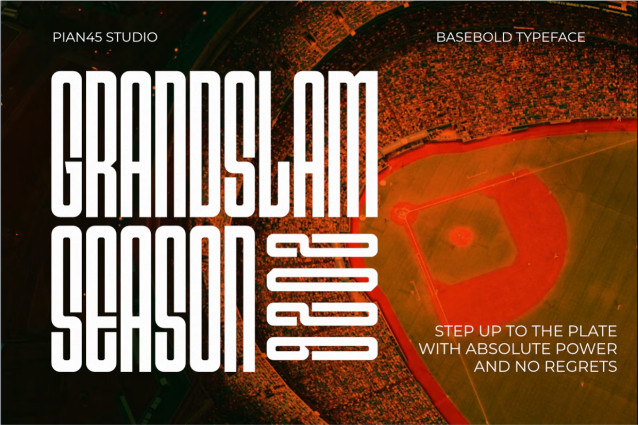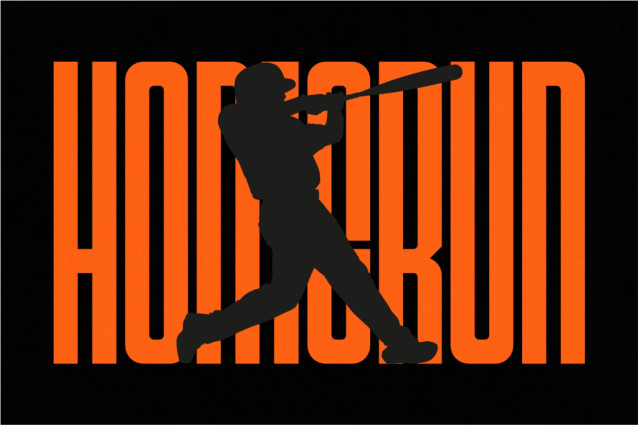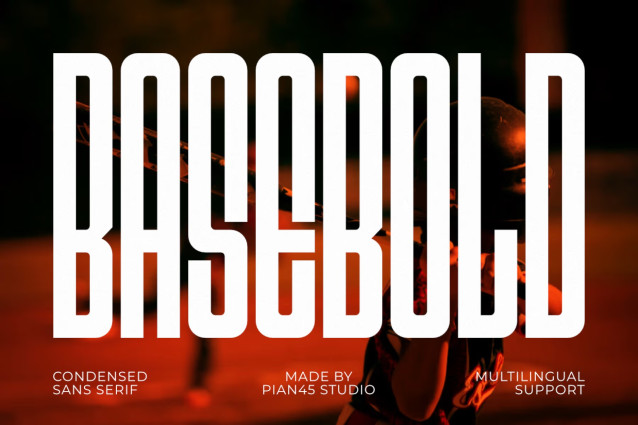
Basebold – Condensed Sans Serif Font
Basebold is a striking and authoritative Modern Condensed Sans Serif font engineered for maximum visual impact in tight spaces. Featuring tall vertical lines, subtle smooth curves, and an ultra-bold silhouette, this all-caps typeface is perfectly built for sports branding, baseball team logos, high-energy gaming titles, and contemporary urban streetwear designs. Its space-saving design and commanding structural geometry ensure excellent readability, making it an essential tool for high-visibility headlines, movie posters, merchandise layouts, and digital marketing banners that demand a strong, sophisticated presence.
Features:
• All Caps
• Numerals
• Punctuation
• Multilingual Support